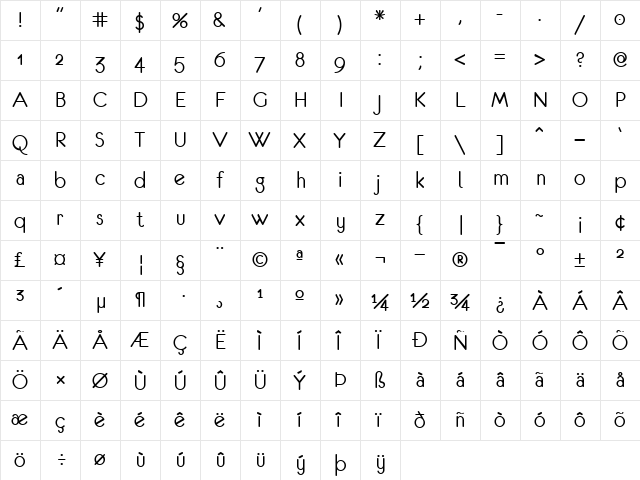
eurofurence classic regular
Design Context for eurofurence classic Typeface
eurofurence classic has the warm character of retro typography — evoking diners, record sleeves, and the golden age of print advertising.
Font Pairing: Combine eurofurence classic with a simple slab or neutral sans — period-accurate companions reinforce the vintage feel without competing for attention.
Pro Tip: Use eurofurence classic for headlines and pull quotes rather than body copy — its personality is best appreciated in short, focused bursts.